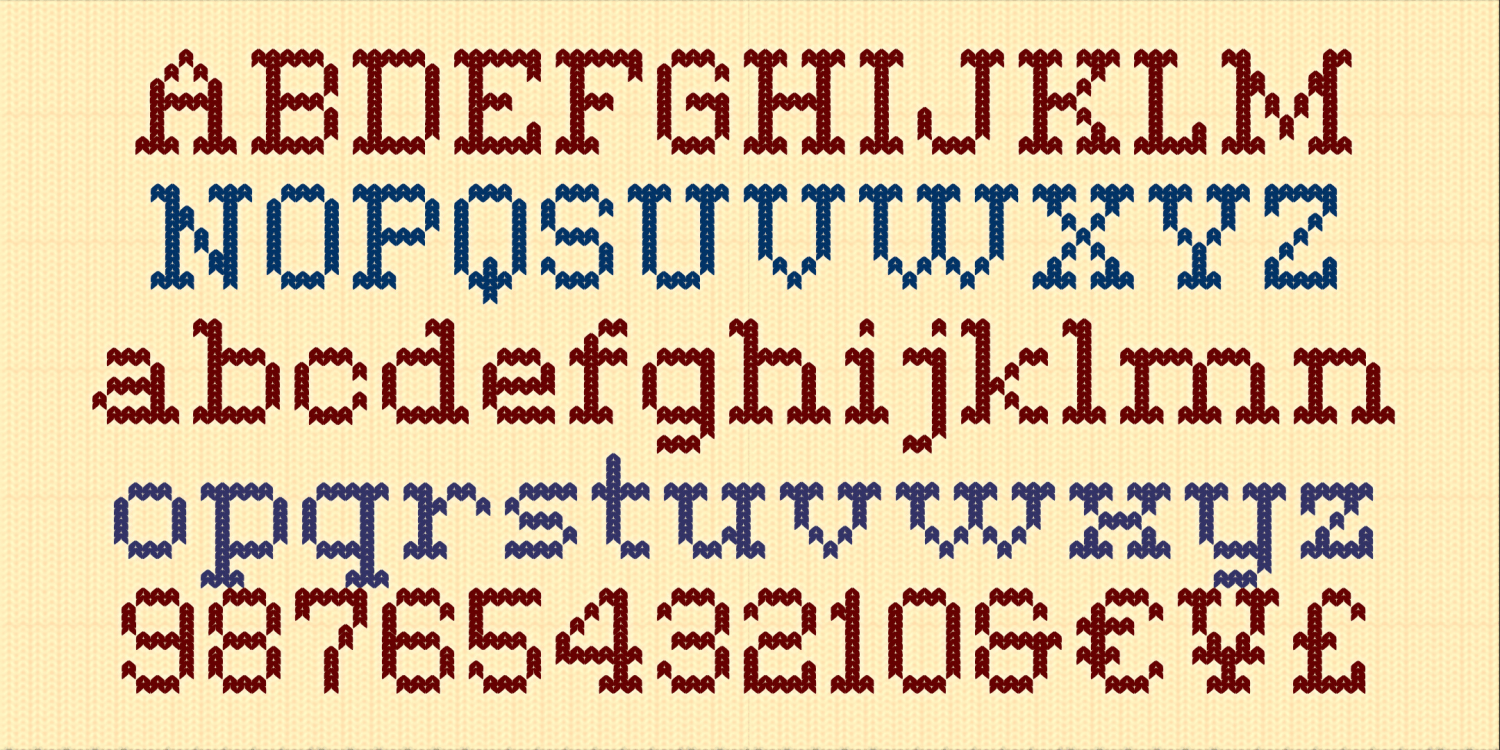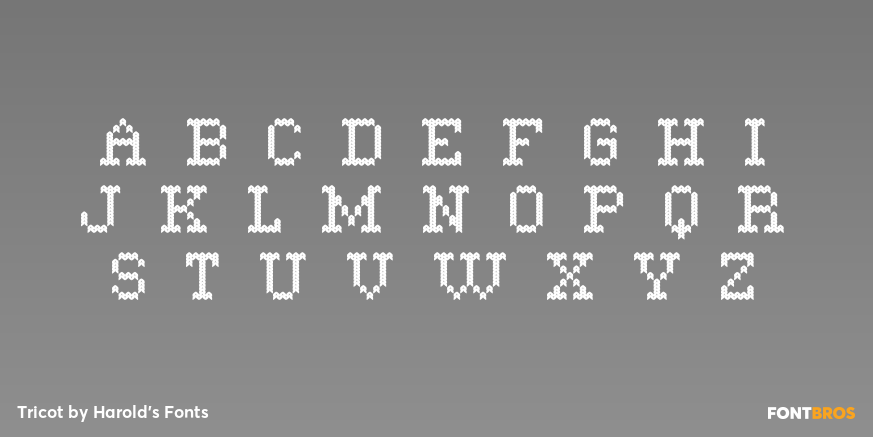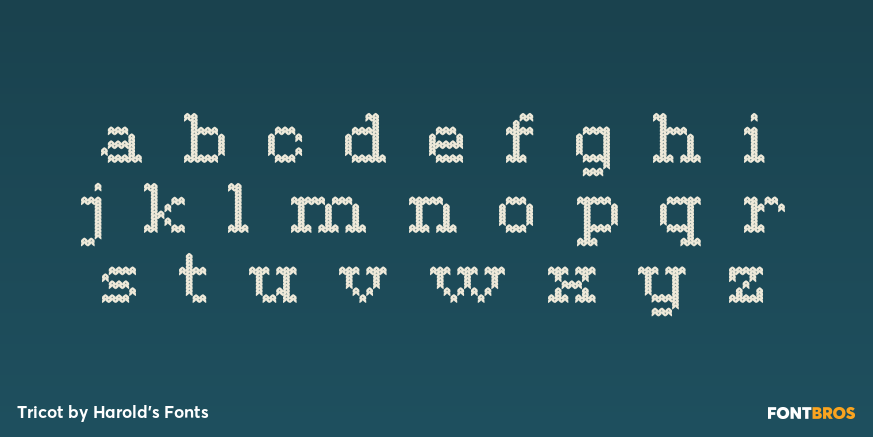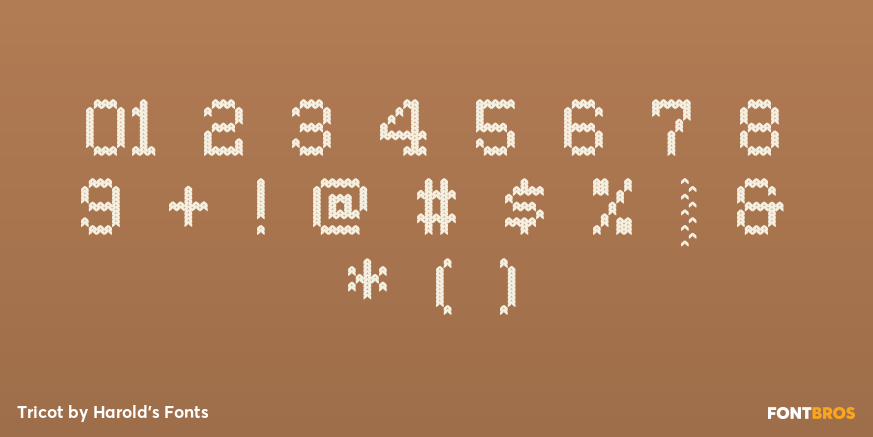
Tricot
Font Family by Harold's Fonts
TRICOT was designed to look like knitted letters, which in turn were an early form of bitmap plotting. Each "pixel" consists of a pair of oval stitches that combine to create the friendly texture of a handmade sweater. Soft and warm and cozy.